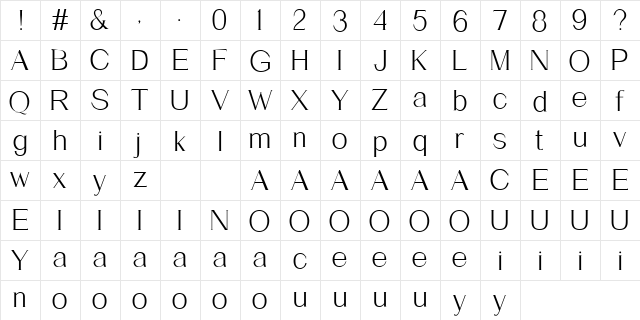
HalfbreD Regular
| Foundry | Letter Deen Co. |
| Designer | Muhammad Wahyudin |
Design Context for HalfbreD Typeface
HalfbreD takes a measured approach to typography — its balanced proportions and neutral character make it a reliable workhorse for both digital and print work.